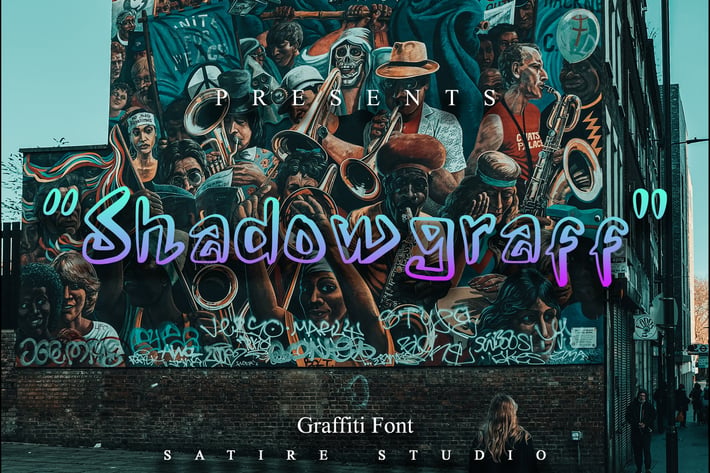
Shadowgraff - Graffiti Font
Shadowgraff | Graffiti Font, So beautiful on invitation like greeting cards, branding materials, business cards, quotes, posters, and more!